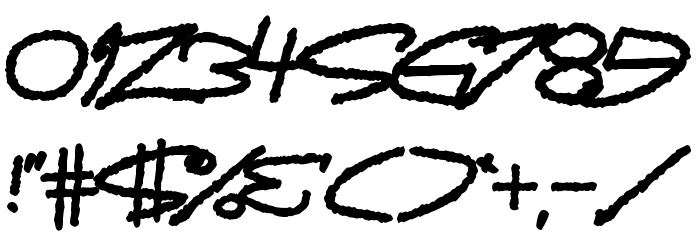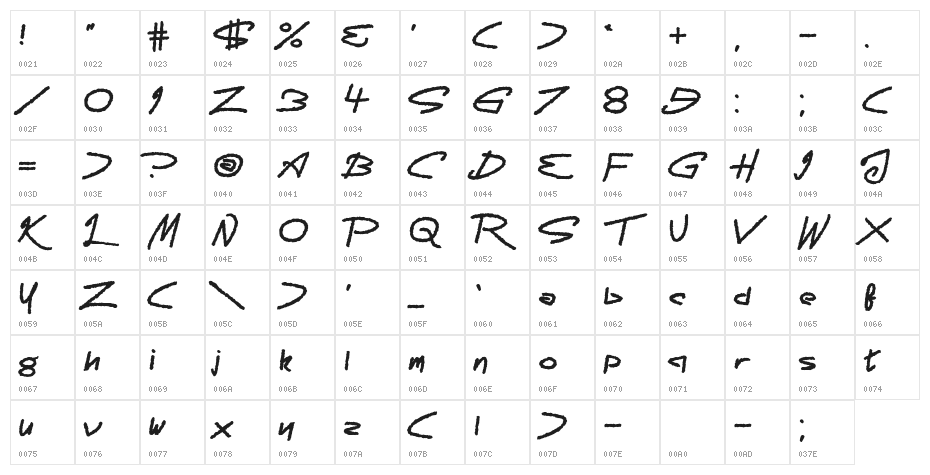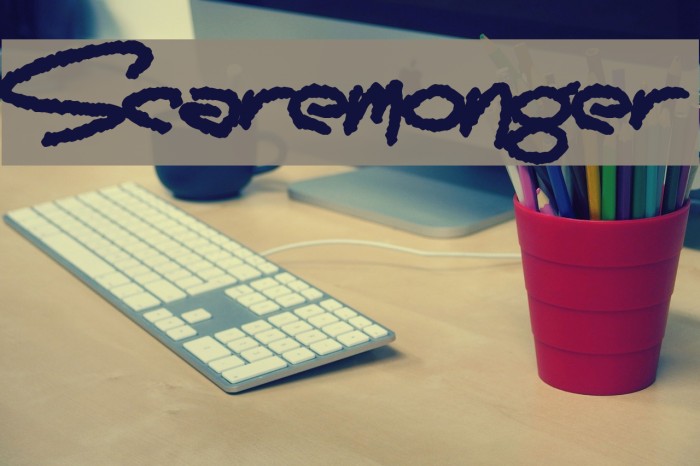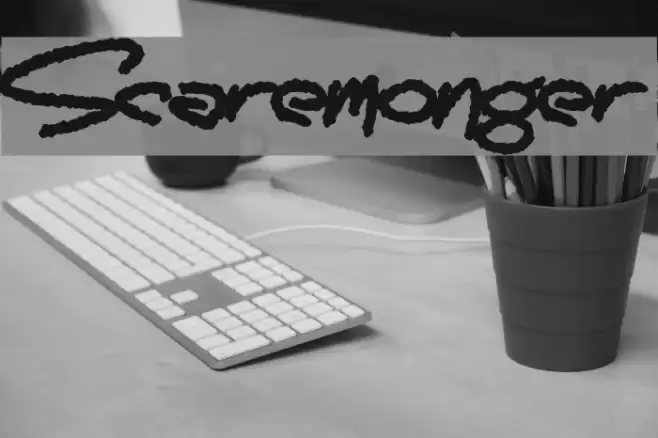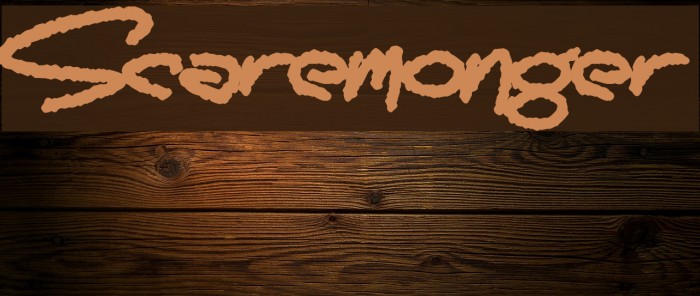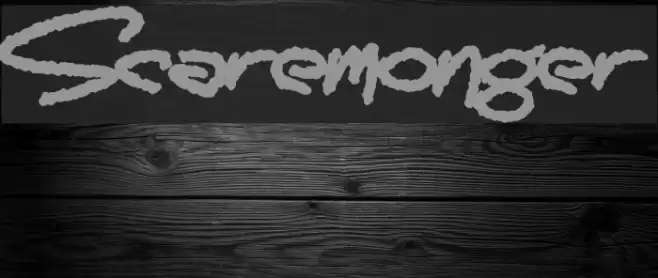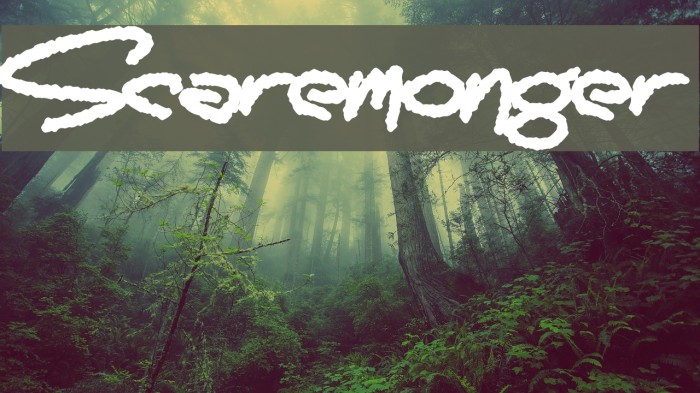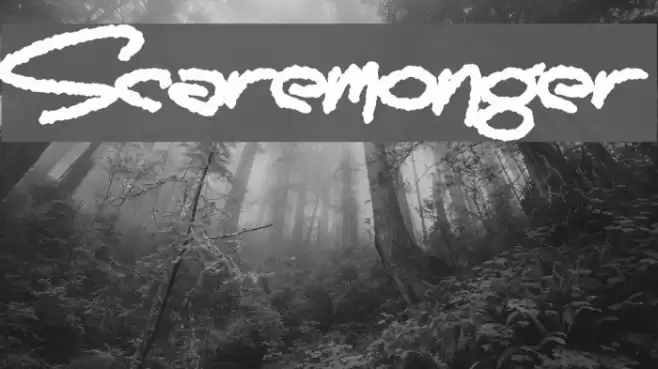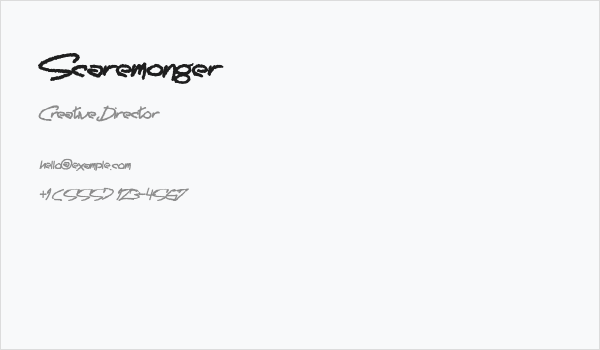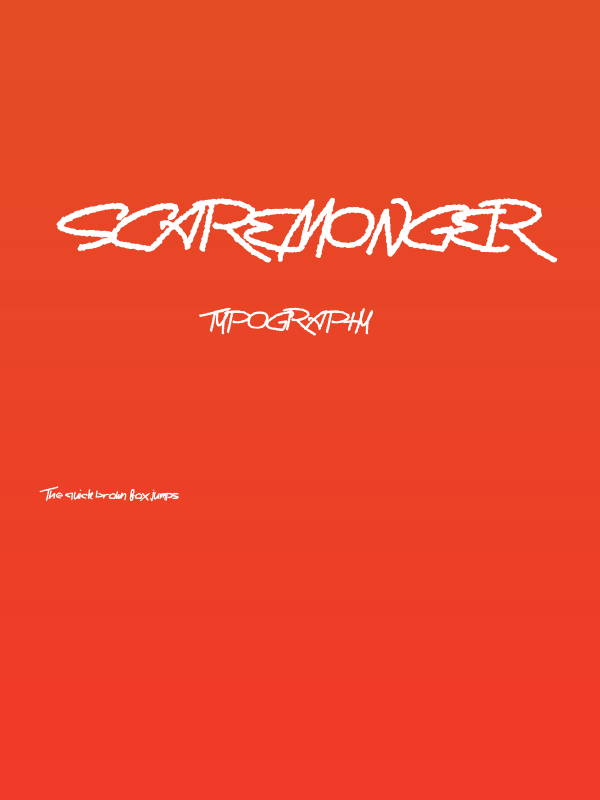
Scaremonger Font
Scaremonger Description
This font features a bold, expressive style with a handwritten appearance. The strokes are thick and uneven, giving it a raw and edgy feel. The characters are slightly slanted, adding a dynamic and energetic vibe. The uppercase and lowercase letters maintain a consistent style, with exaggerated curves and sharp angles. The numbers and special characters follow the same aesthetic, ensuring a cohesive look across all elements. This font is ideal for projects that require a bold statement or a touch of personality.
| Proposed Projects | Ideal for posters, album covers, graffiti art, and branding that requires a bold, edgy statement. |